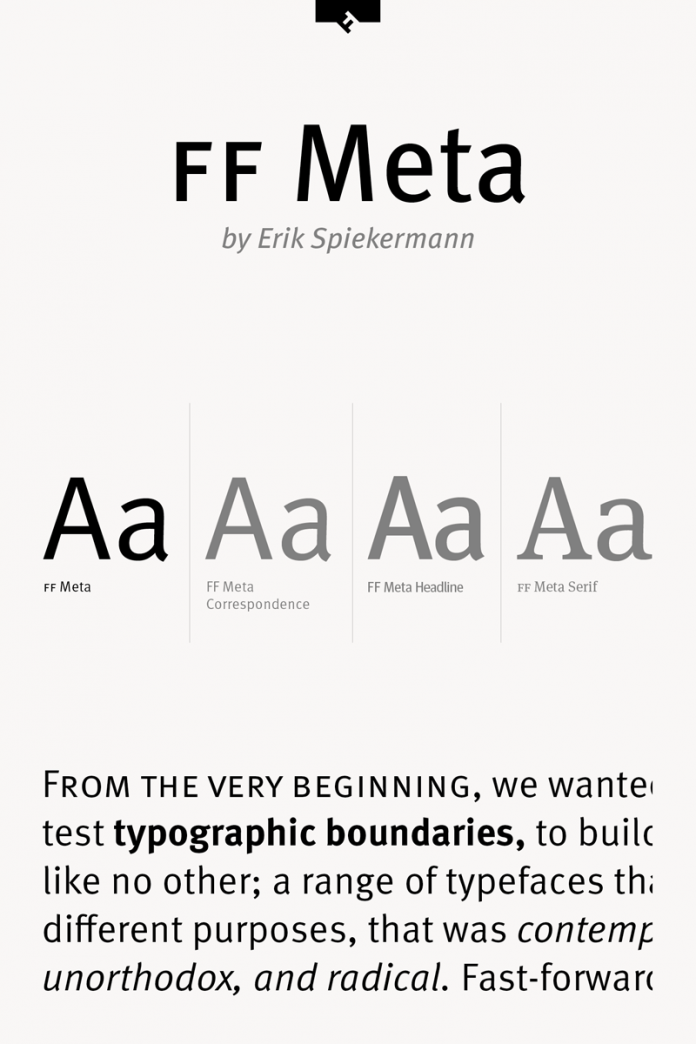
FF Meta, a sans serif font family created by German type designer Erik Spiekermann of FontFont.
The complete FF Meta font family was designed between 1991 and 2010 by Erik Spiekermann, an internationally renowned graphic designer, typographer, type designer, and co-founder of foundry FontFont. The complete font family consists of 28 weights, ranging from Hairline to Black including Condensed and Normal as well as Italic versions for each weight. Erik Spiekermann wanted to create a typeface suitable for a variety of applications such as advertising, packaging, books, editorial and publishing, logo design, branding projects, small and long texts as well as web and screen design.
The family is equipped with professional OpenType features such as ligatures, alternate characters, case-sensitive forms, small capitals, fractions, super- and subscript characters, and many more. Besides all common Latin-based languages, the family also supports Cyrillic, Greek, and Hebrew characters.
In 2011, the FF Meta typeface was added to the MoMA Architecture and Design Collection in New York. This typeface belongs to the FF Meta super family, which also includes FF Meta Correspondence, FF Meta Headline, and FF Meta Serif. The family is available as both Webfont as well as Desktop font.